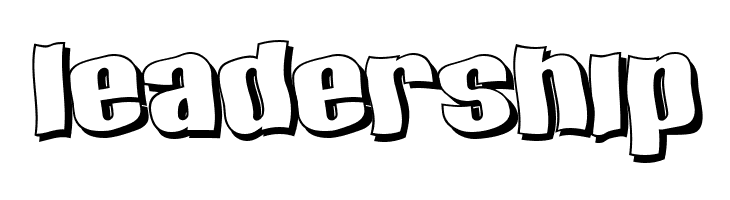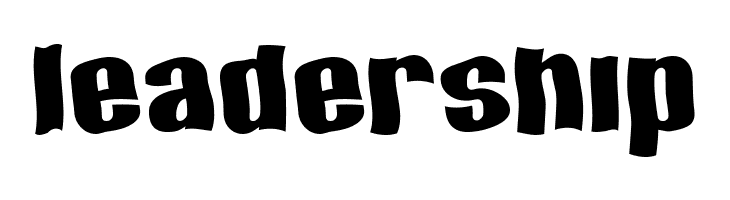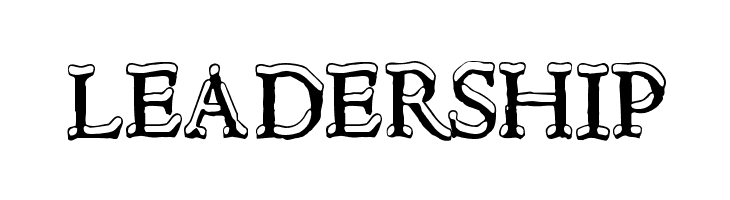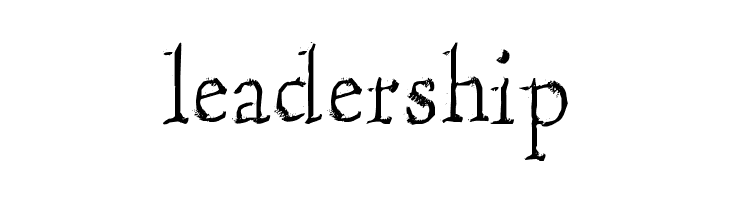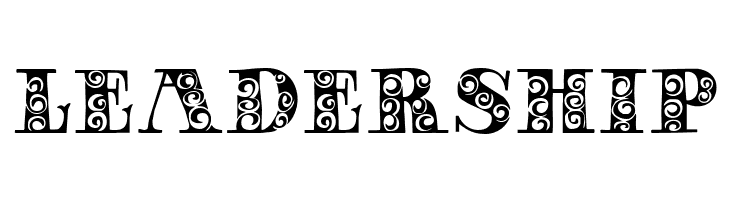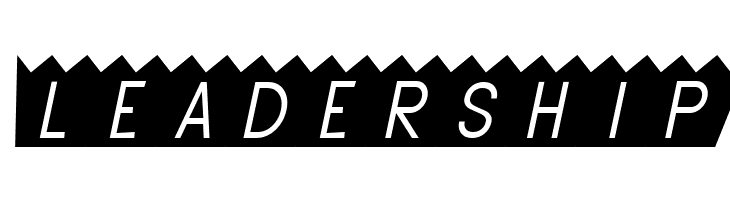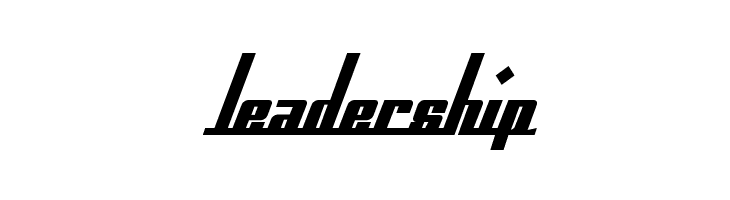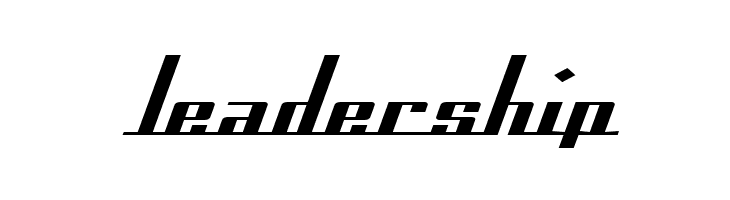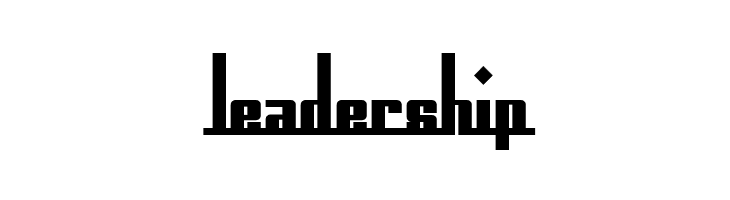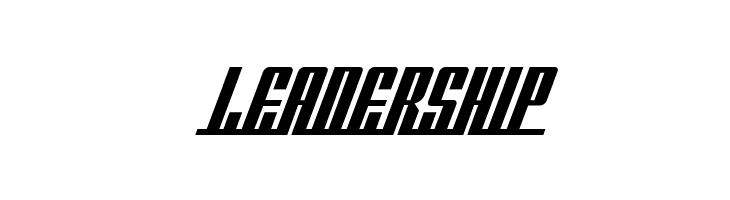
A bold, playful font with a three-dimensional shadow effect.
A bold, distorted font with a playful, dynamic style.
A playful, decorative font with bold, rounded edges and a whimsical, hand-drawn style.
An engraved, textured font with a vintage and classic appeal.
A dynamic oblique font with sharp, angular edges and a zigzag baseline.
A bold, slanted, and condensed font with high contrast and dynamic style.
A bold, angular font with a dynamic slant and retro-futuristic style.
A bold, condensed font with a modern and geometric style.
A bold, italicized font with elongated, narrow characters and a dynamic, modern style.
A bold, modern decorative font with high contrast and narrow, impactful characters.
A bold, angular font with a modern, dynamic style.
A bold, slanted font with a sleek, modern design.
A bold, geometric font with a modern and streamlined design.
A bold, extended font with a dynamic slant and sharp angles.
A bold, geometric font with a vintage Americana vibe and modern appeal.
A bold, oblique font with dynamic, angled strokes for a powerful impact.
A distressed, oblique font with sharp, angular lines and a rugged texture.
A bold, oblique font with sharp, angular edges and a dynamic style.
A sleek, futuristic font with angular lines and dynamic curves.
A bold, futuristic font with geometric, block-like characters.
A futuristic, geometric outline font with a bold and modern aesthetic.
A futuristic, bold outline font with an oblique slant and geometric shapes.
A bold, oblique font with a futuristic and dynamic style.
A bold, futuristic font with a geometric and blocky design.
A futuristic, condensed, and oblique font with bold, angular characters.
A bold, italicized, and extended sans-serif font with a modern and dynamic style.
A bold, extended font with a strong, modern presence.
A bold, extended, and italicized font with a modern and dynamic style.
A bold, decorative slab serif font with strong, impactful characters.
A bold slab serif font with a vintage yet modern appeal.
A bold slab serif font with a vintage Western style.
A playful, dotted outline font with bold, rounded characters.
A modern, inline font with geometric shapes and smooth curves.